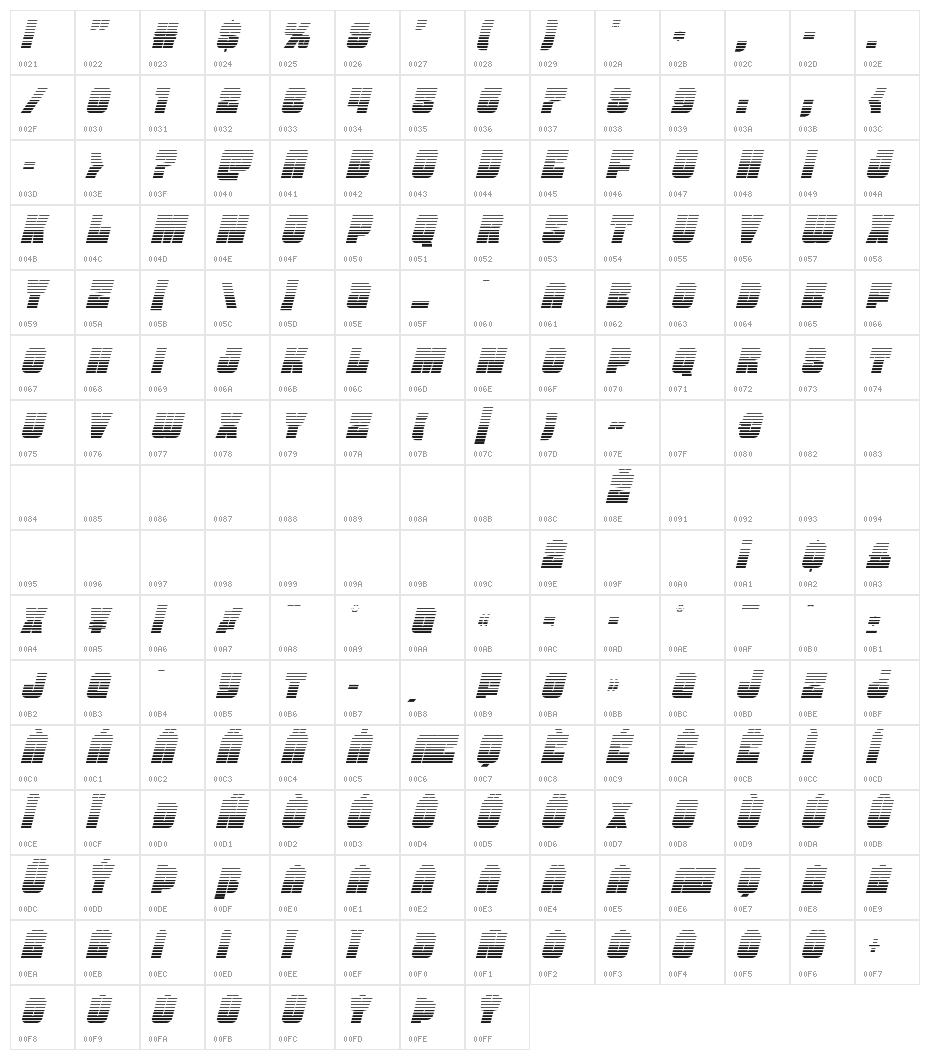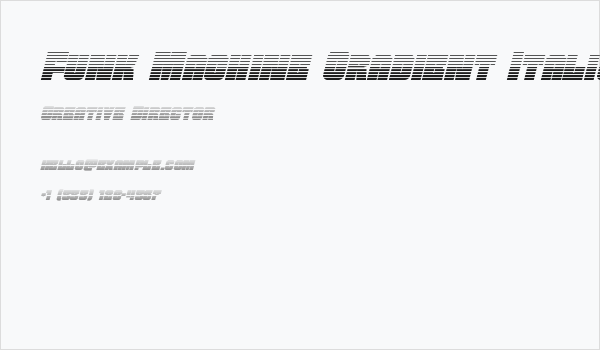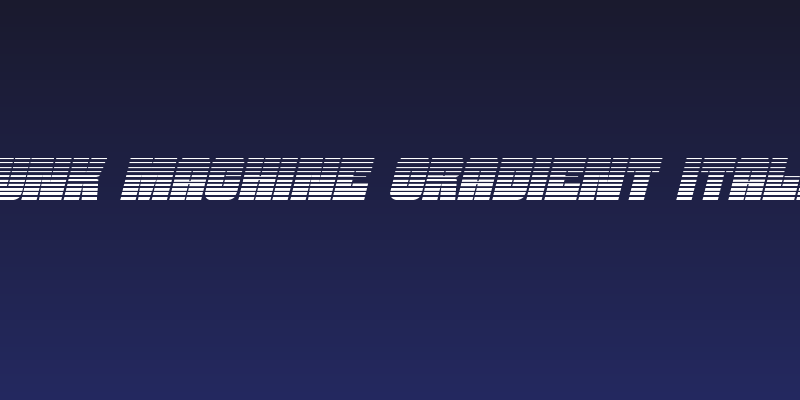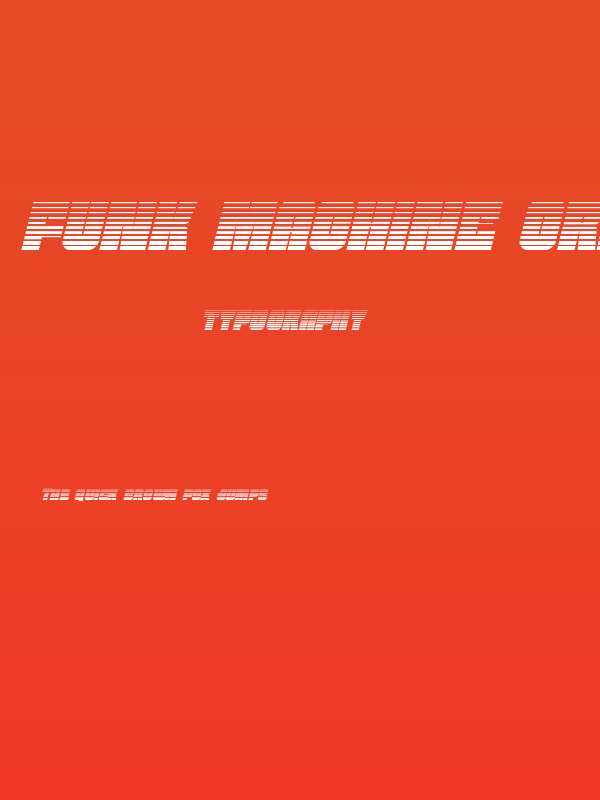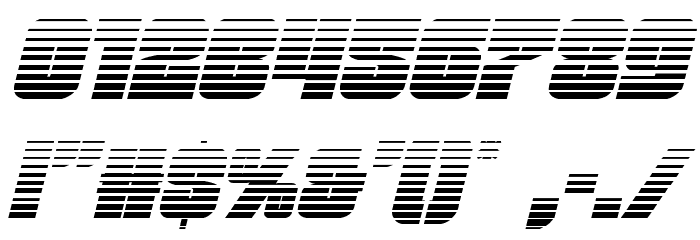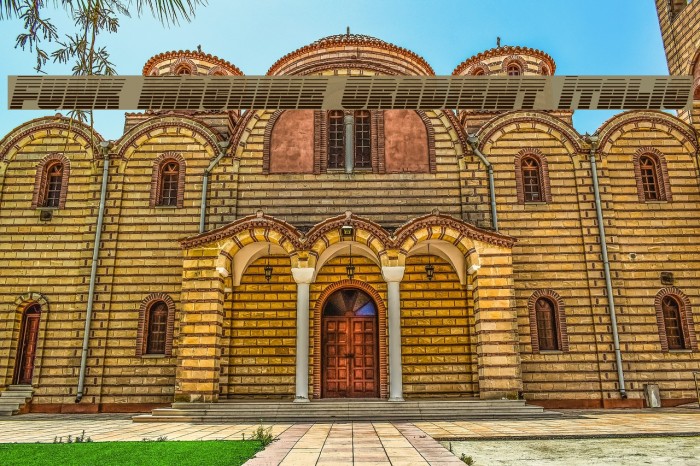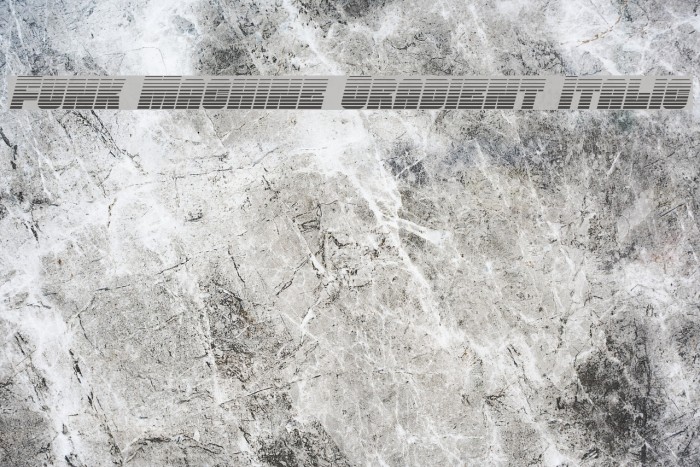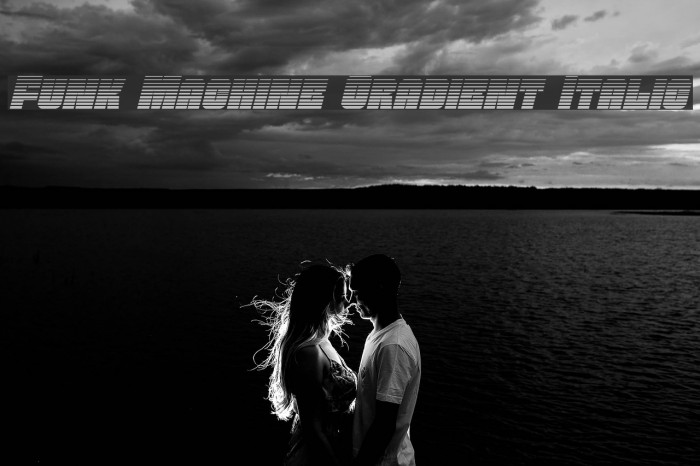
Funk Machine Gradient Italic Font
Funk Machine Gradient Italic Description
This font features a bold, dynamic design with a distinct gradient effect that gives it a sense of movement and energy. The characters are italicized, adding to the forward momentum and modern aesthetic. Each letter is composed of horizontal lines that create a striped appearance, enhancing the visual impact and making it ideal for attention-grabbing designs. The uppercase and lowercase letters, along with numbers and special characters, maintain a consistent style, ensuring uniformity across different uses. The font's unique style makes it suitable for projects that require a futuristic or tech-inspired look.
| Proposed Projects | Ideal for futuristic branding, tech-related graphics, music album covers, and dynamic posters. |